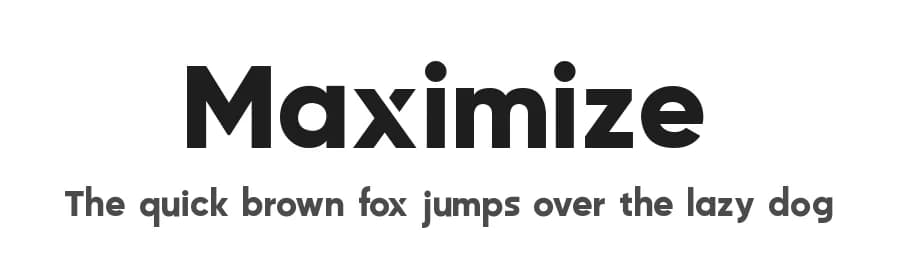
About Maximize Font
We introduce Maximize font with a modern and clean form. This font has a feature that you can get with different font characters (please see the preview
).
Maximize Specifications
| Font Family | Maximize |
| Glyph Count | 213 glyphs |
| Designer | CreativeKiller |
Maximize supports 205 languages.
Maximize Font is a versatile sans-serif font that works for both headings and body text. Pair it with a contrasting serif or slab serif font to add visual interest and a clear distinction between titles and body copy.
Maximize Font